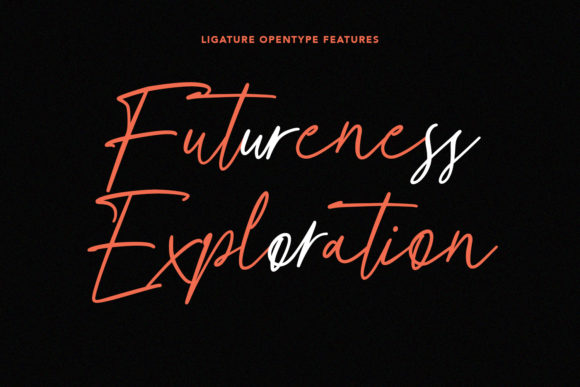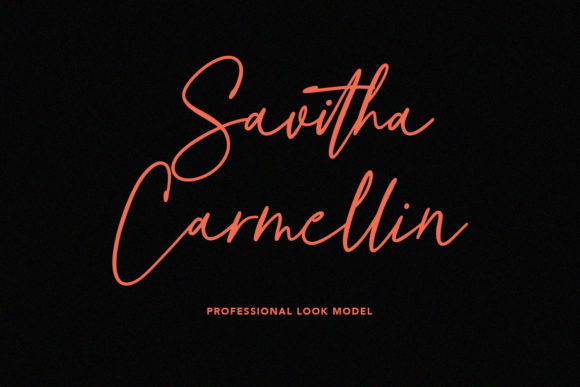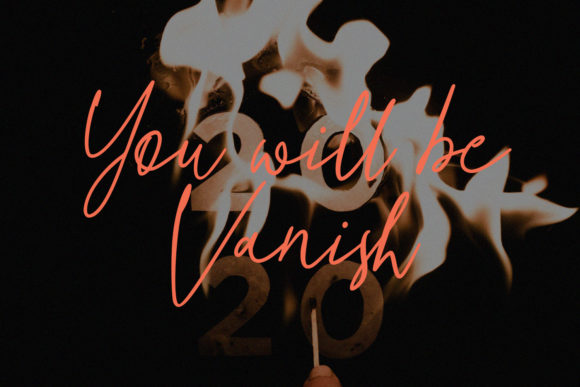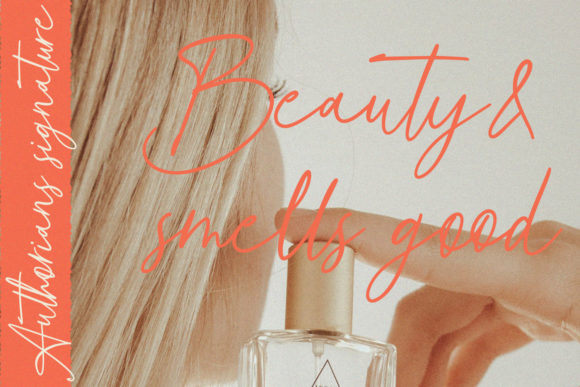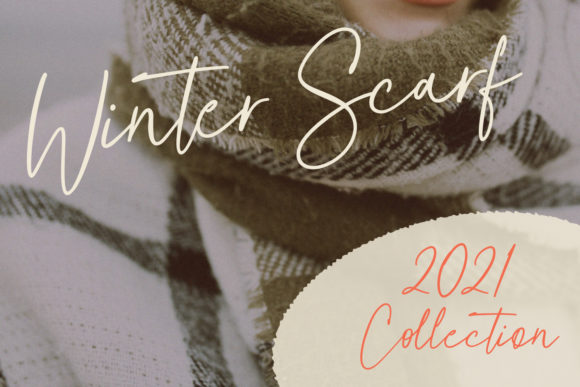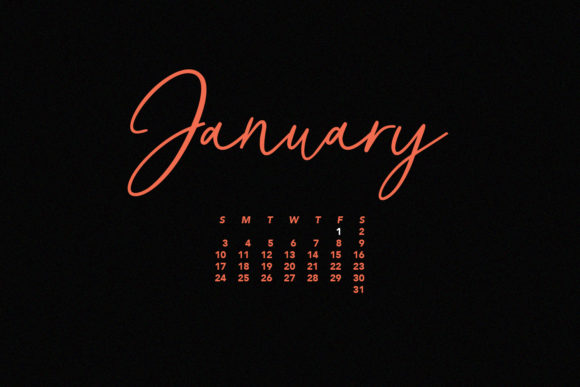
Introducing Authorians Font: Elevate Your Designs with Elegance and Sophistication
In the world of typography, a font can make or break the aesthetic of a design. For designers and crafters seeking a typeface that exudes both elegance and casual charm, Authorians Font is an exceptional choice. This handwritten font is meticulously crafted to offer a neat and beautiful arrangement of letters, making it versatile for use in both formal and non-formal designs.
The Essence of Authorians Font
Authorians is a casual and elegant handwritten font that strikes the perfect balance between sophistication and approachability. Its unique charm lies in its ability to convey a sense of refinement without appearing too formal. This characteristic makes it an ideal choice for a wide range of design projects, from wedding invitations and branding materials to blog posts and digital content.
Key Features of Authorians Font
• Neat and Beautiful Arrangement of Letters: Each letter in Authorians Font is designed with precision, ensuring a harmonious flow that enhances readability and visual appeal.
• Casual yet Elegant: The font embodies a casual elegance, making it suitable for designs that require a touch of sophistication without being overly formal.
• Versatility: Authorians Font can seamlessly transition between formal and non-formal designs, offering designers the flexibility to use it across various projects.
• Handwritten Style: The font’s handwritten style adds a personal touch to designs, making them stand out in a digital landscape often dominated by sans-serif fonts.
Applications of Authorians Font
The versatility of Authorians Font makes it suitable for a myriad of applications, including:
• Branding and Logo Design: Use Authorians Font to create a memorable brand identity that communicates elegance and approachability.
• Wedding and Event Invitations: The font’s elegant yet casual nature makes it perfect for wedding invitations, save-the-date cards, and other event-related materials.
• Digital Content: Enhance your blog posts, social media graphics, and website content with a touch of sophistication and personality.
• Packaging Design: Add a personal and elegant touch to product packaging, making it more appealing to potential customers.
Why Choose Authorians Font?
In a sea of fonts, Authorians stands out for its unique blend of elegance and casualness. Here are a few reasons why designers and crafters should consider adding Authorians Font to their toolkit:
• Unique Aesthetic: Authorians offers a distinctive look that can set your designs apart from the crowd.
• Time-Saving: With its excellent readability and versatile nature, Authorians Font can save designers time in selecting and pairing fonts for different projects.
• Easy to Read: The font’s neat arrangement of letters ensures that your content is easy to read, enhancing user experience.
Authorians Font is a valuable addition to any designer’s or crafter’s collection. Its casual elegance, versatility, and readability make it an excellent choice for a wide range of design projects. Whether you’re creating formal or non-formal designs, Authorians Font can help you achieve a sophisticated yet approachable look. Embrace the beauty and elegance of Authorians Font in your next design project and experience the difference it can make.